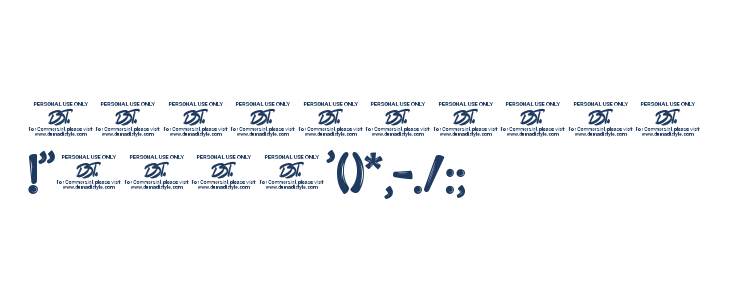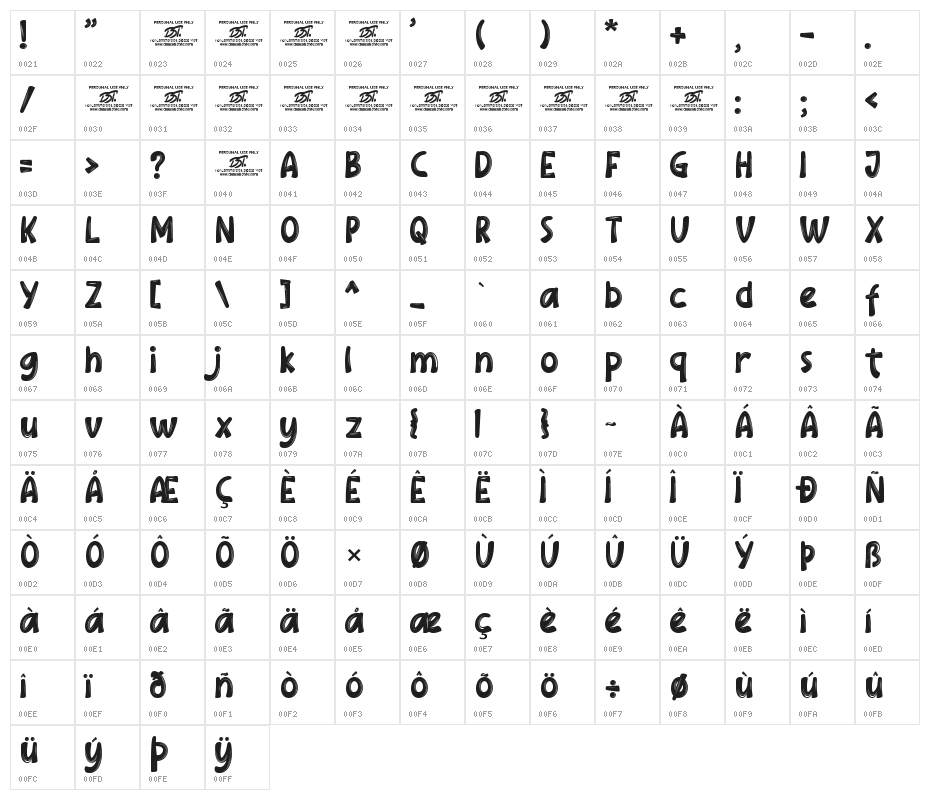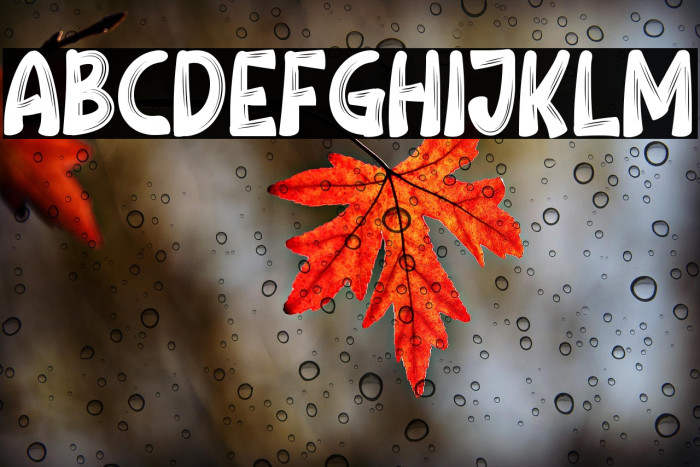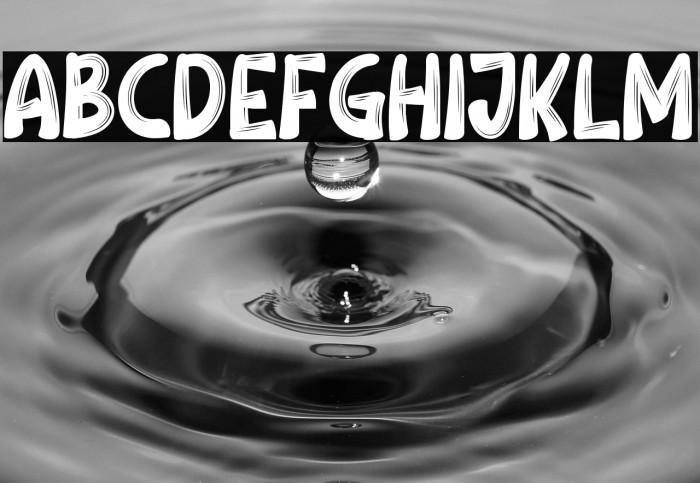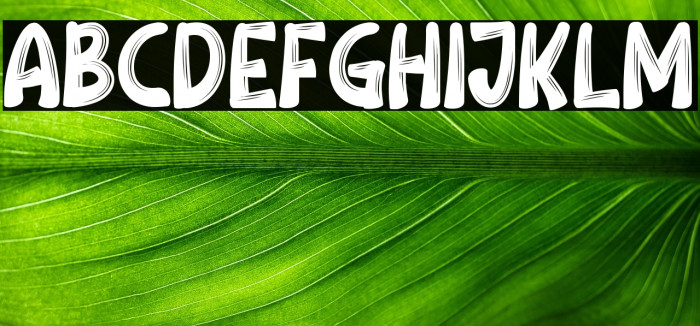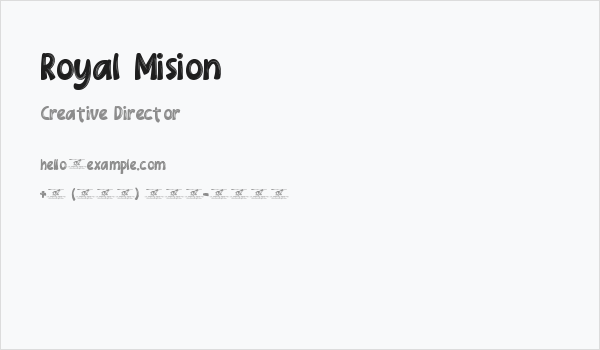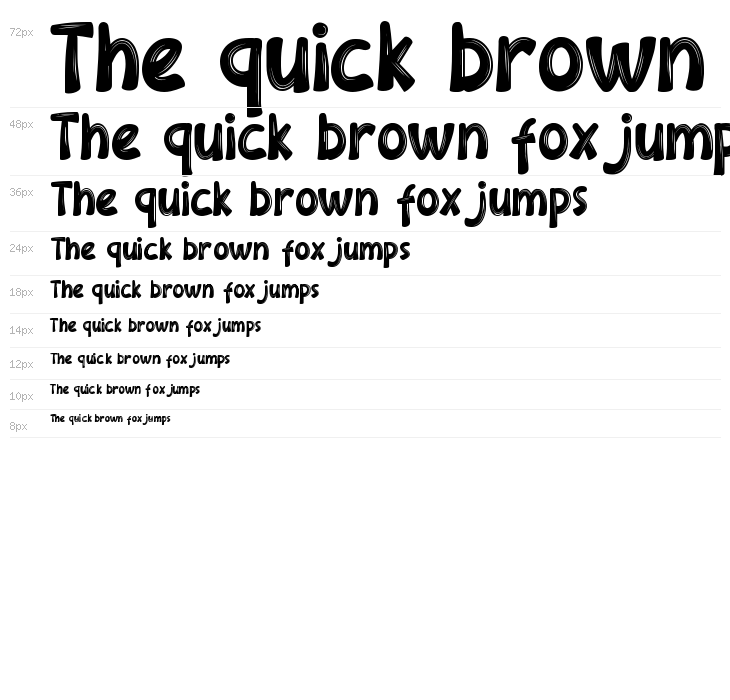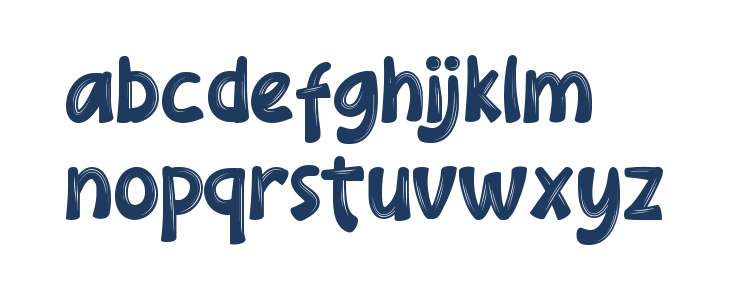
Royal Mision Font
Royal Mision Description
This font features a bold and playful style with a hand-drawn appearance. The characters are thick and rounded, with a unique brush-like texture that gives them a dynamic and energetic feel. The uppercase and lowercase letters maintain a consistent style, with slightly exaggerated curves and strokes that add to the font's whimsical nature. The numbers and special characters follow the same design principles, ensuring a cohesive look across all elements. This font is ideal for projects that require a fun and informal touch, such as children's books, playful branding, or creative posters.
| Overall Style | Playful, Energetic, Hand-drawn |
| Proposed Projects | Ideal for children's books, playful branding, creative posters, and informal designs. |